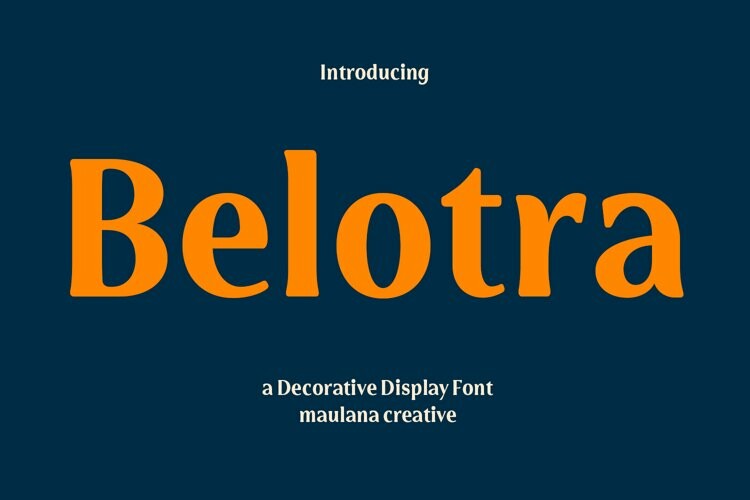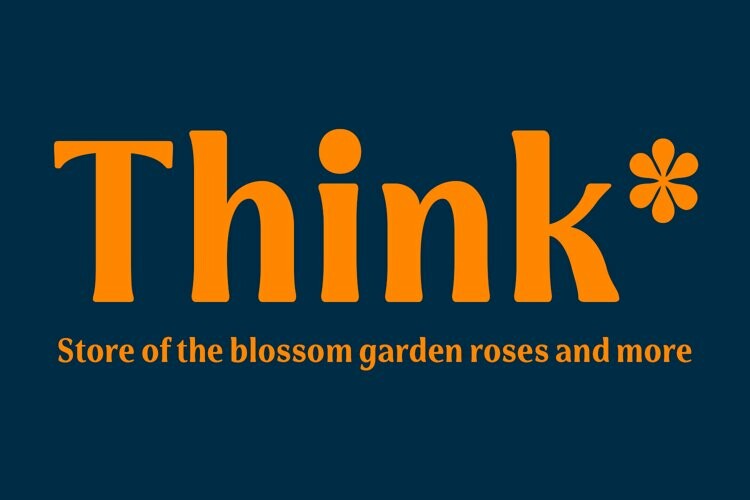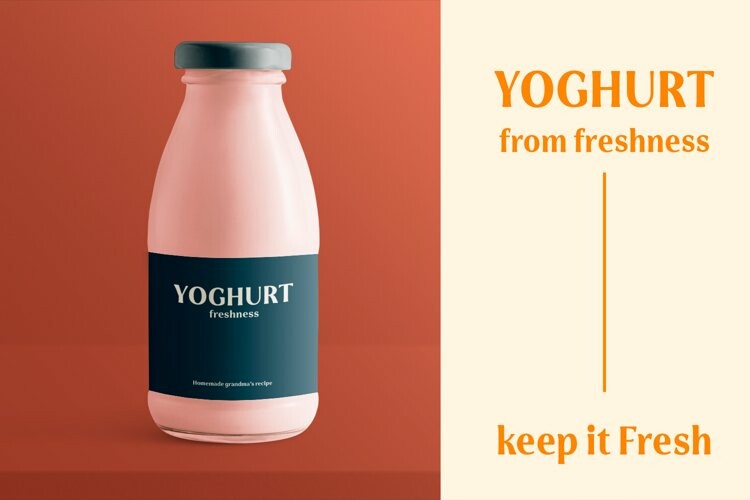
Belotra Font
Belotra FontBelotra is a semi serif decorative display font. With medium low contrast stroke, fun character with a bit of ligatures and alternates. To give you an extra creative work. Belotra font support multilingual more than 100+ language. This font is good for logo design, Social media, Movie Titles, Books Titles, a short text even a long text letter and good for your secondary text font with script or serif. Make a stunning work with Belotra font.